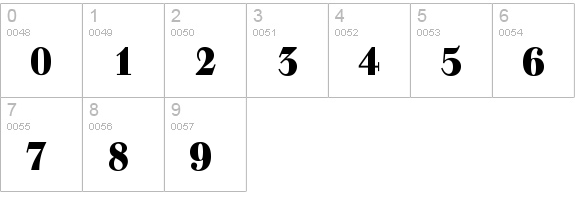
Walbaum Buch Bold Font Details
Walbaum Buch Bold is a strong, high-contrast variant in the Walbaum typeface family \xE2\x80\x94 well suited to headlines, attention-grabbing titles, and strong calls-to-action.
Walbaum Buch Bold font is a visually stunning typeface that exudes elegance and sophistication. Its bold and strong letterforms make a powerful statement, capturing attention and leaving a lasting impression. This font is perfect for headlines, titles, and any design that requires a touch of grandeur. The carefully crafted curves and sharp edges of Walbaum Buch Bold create a harmonious balance, making it a versatile choice for both print and digital projects. Whether it's used in a magazine layout, a logo design, or a website header, this font effortlessly adds a touch of professionalism and refinement. What's even better is that Walbaum Buch Bold is available for free! You can easily download this remarkable font at FontsMarket.com, a trusted source for high-quality fonts. By offering this font freely, the creators have made it accessible to everyone, regardless of their budget or design aspirations. So why wait? Discover the beauty of Walbaum Buch Bold font today and elevate your designs to new heights. Get your hands on this exquisite typeface and let it inspire creativity and captivate your audience. Download it for free at FontsMarket.com and embark on a design journey that is bound to impress.